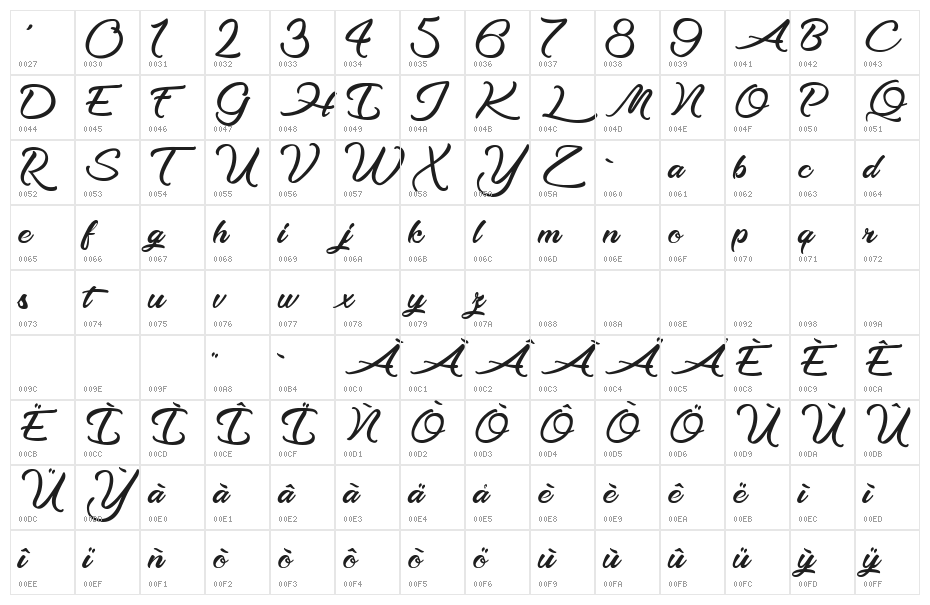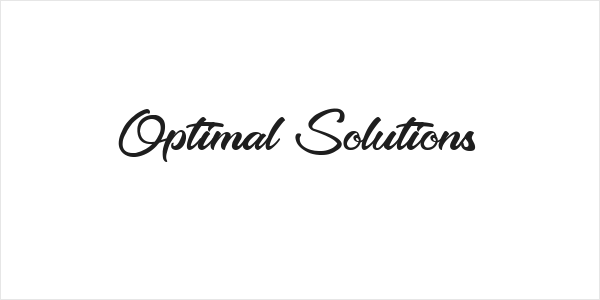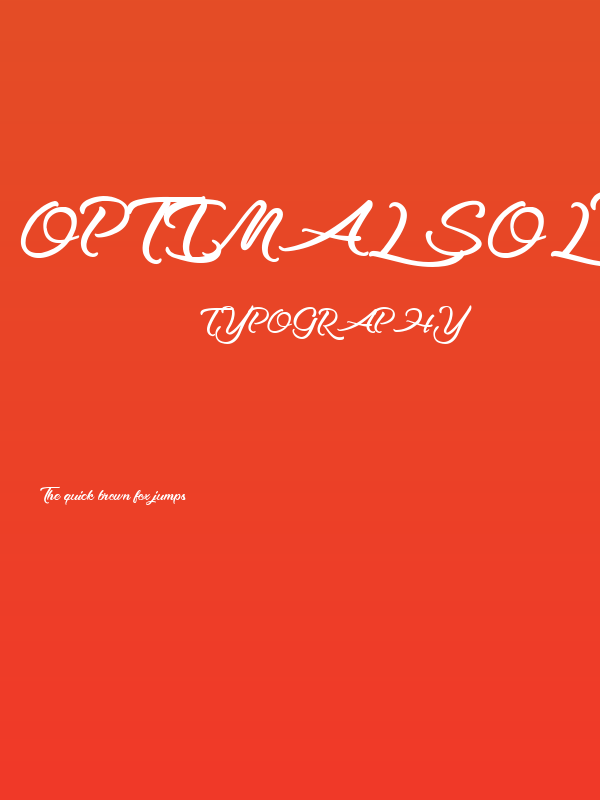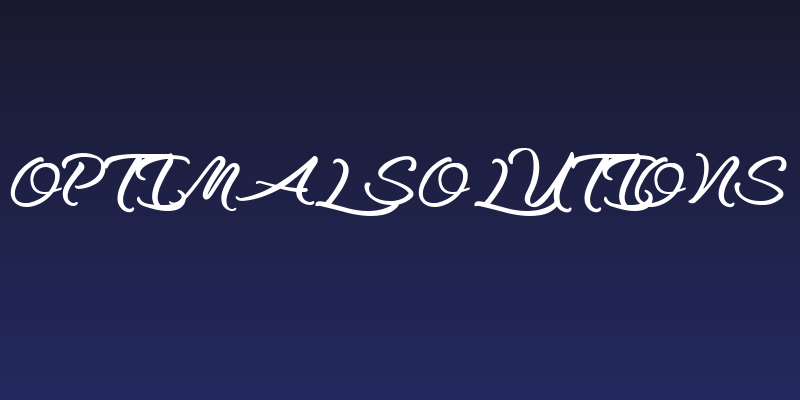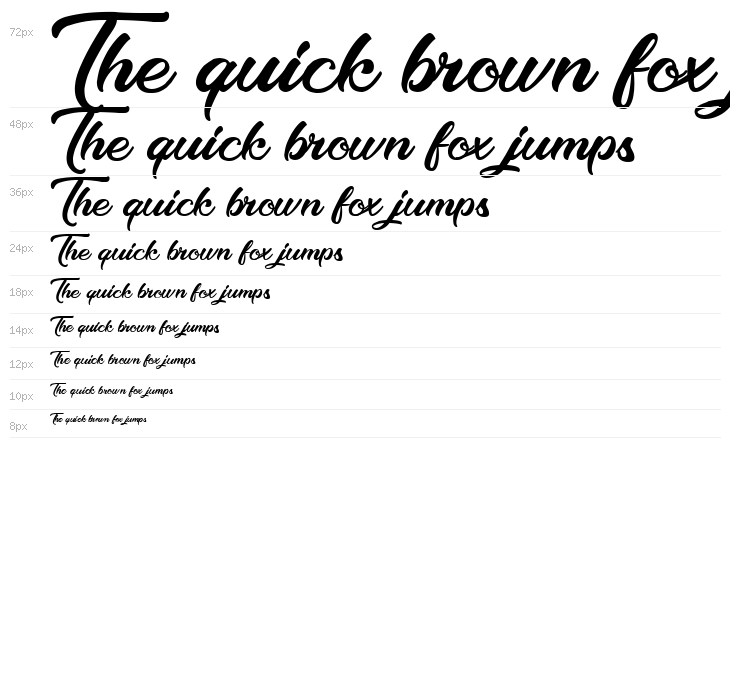
Optimal Solutions Font
| श्रेणियाँ | Script |
| इटैलिक | Yes |
| समग्र शैली | Elegant |
| उपयोग का मामला | Invitations, Branding, Stationery |
| सुझाए गए प्रोजेक्ट | Ideal for wedding invitations, formal event programs, upscale branding, and elegant stationery. |